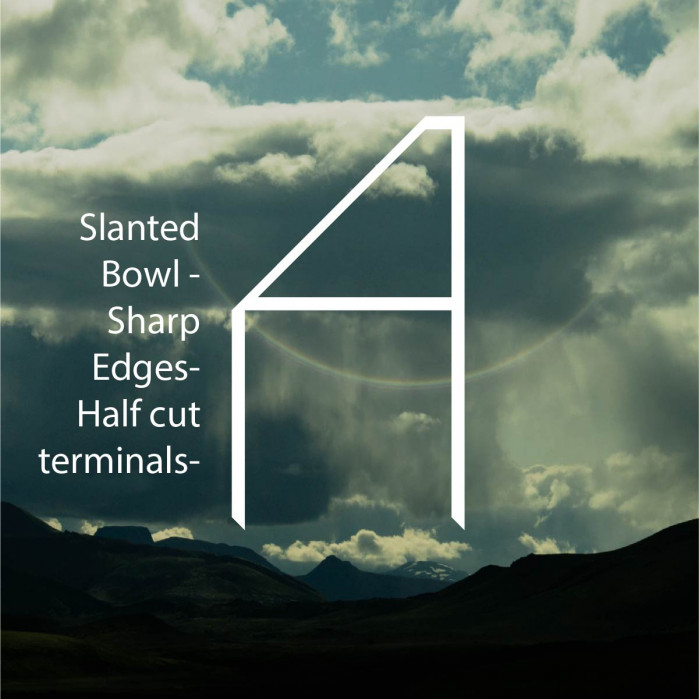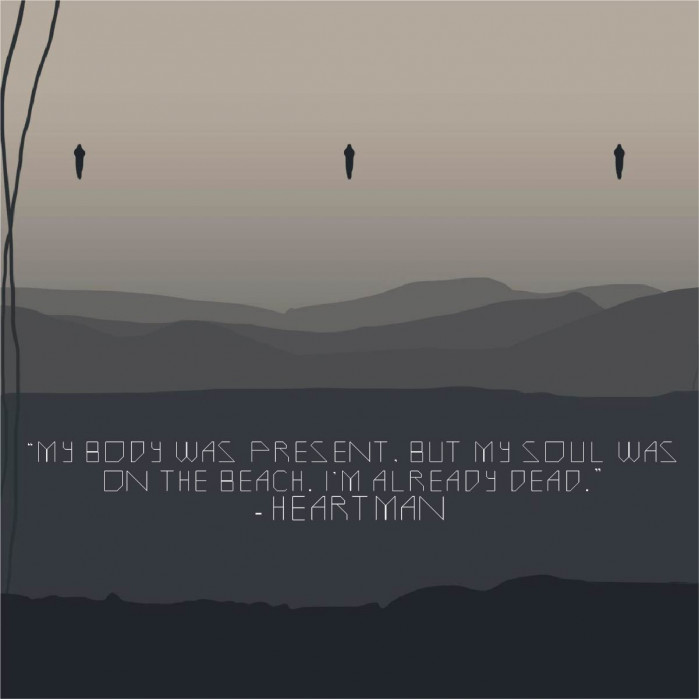
• A sleek, futuristic, Sci-Fi font that I created. One of my inspirations of creating a font like this was a film called 'Ex-Machina'. It is a sci-fi movie that I would encourage you to see! I wanted to add my own style to this font by making the corners or edges of the letters split. I think adding an element like that makes this font more unique.